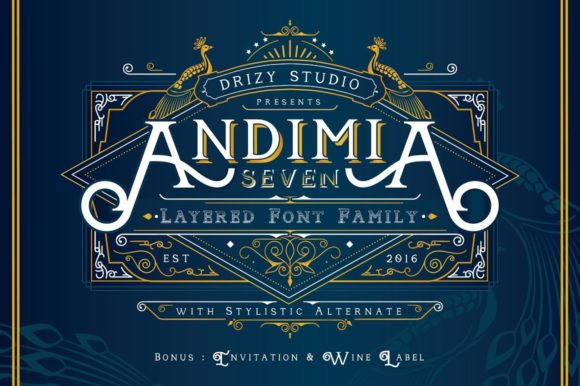
Dive into a world of timeless elegance with Andimia, a captivating serif font that will elevate your creative visions. Each letter is a masterpiece, crafted with an assertive grace that dances across the page, leaving an unforgettable impression.
Unleash your creativity and let Andimia guide you to stunning masterpieces. This PUA-encoded wonder grants you effortless access to a treasure trove of glyphs and swashes, empowering you to infuse your designs with a touch of magic.
Picture the breathtaking allure of wedding invitations adorned with Andimia's delicate strokes, each word a whispered promise of love and forever. Let it grace your branding materials, adding a touch of sophistication that sets you apart from the crowd.
Andimia is not merely a font; it is a gateway to a world of endless possibilities. Whether you're a seasoned designer or a budding enthusiast, this font will ignite your imagination and inspire you to create designs that captivate and enchant.
Don't let this extraordinary font pass you by. Embrace the power of Andimia and embark on a creative journey where beauty and elegance intertwine. Let your designs bloom with the timeless allure of Andimia, a font that will leave an everlasting mark on your creations.